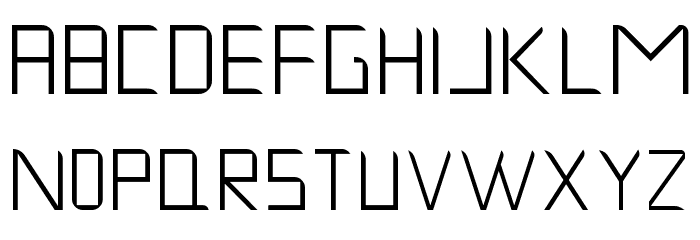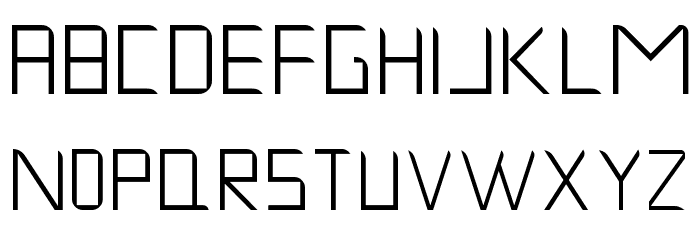
Musk Night Font
This font features a geometric and futuristic design, characterized by its clean lines and angular shapes. The uppercase letters are uniform in height, creating a cohesive and structured appearance. The strokes are consistent in thickness, providing a balanced and modern look. The font's design incorporates unique elements, such as the angular cuts in letters like 'A', 'R', and 'K', which add a distinctive edge to its overall style. The spacing between characters is uniform, contributing to its readability and sleek aesthetic. This font is ideal for projects that require a contemporary and innovative feel.
A geometric and futuristic font with clean lines and angular shapes.
- Proposed Projects: Ideal for technology branding, modern posters, and innovative product packaging.